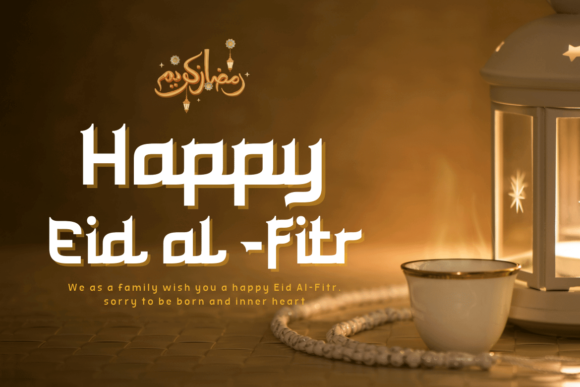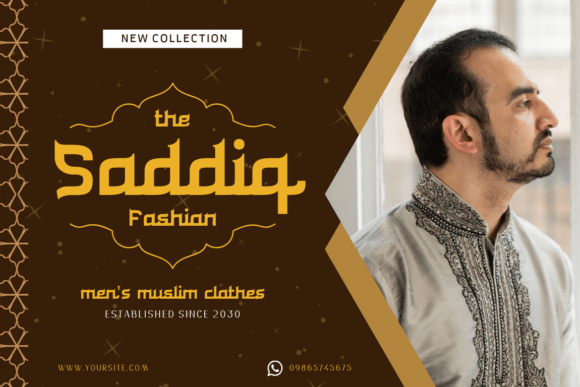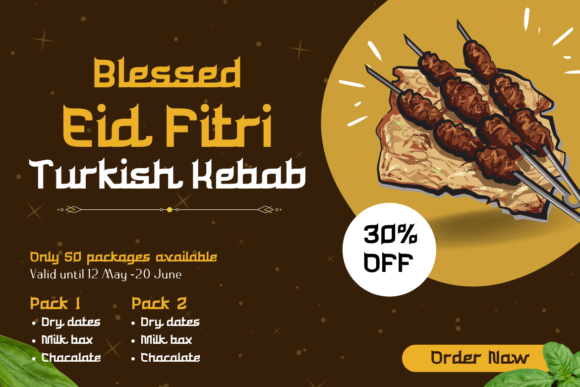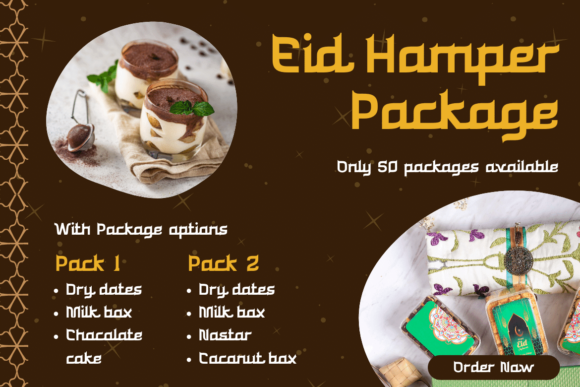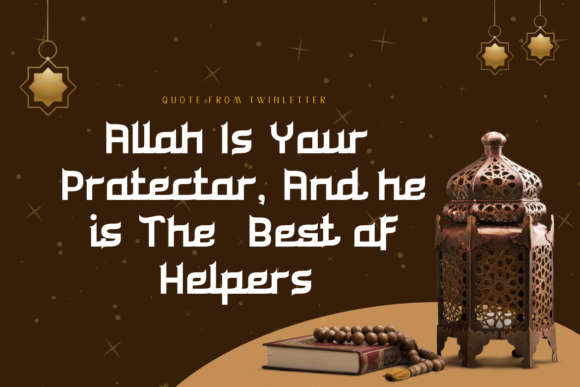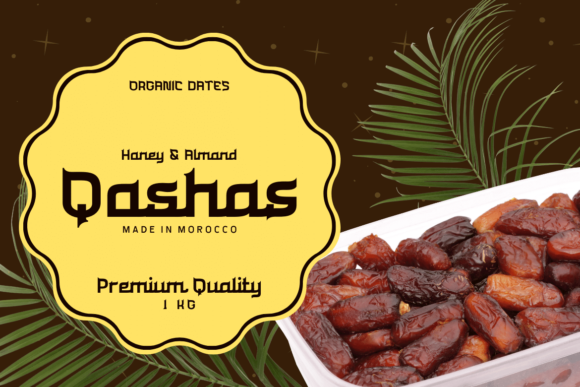
Introduction to Kebagh Font Font
Fonts play a crucial role in design, and the Kebagh Font font is a typeface that brings both character and versatility to any project. Whether you’re working on a branding project, a website, or a print design, the Kebagh Font font offers a unique style that can elevate your work.
Introducing Arabic font in the regular and bound style named Kebagh.
Our display fonts are perfect for your various projects, magazine covers, packaging, and many other design projects You’ll find designs ranging from traditional to modern with a variety of different styles in between.
Key Features of Kebagh Font Font
Why Choose Kebagh Font Font?
The Kebagh Font font is more than just a typeface – it’s a design tool that helps you communicate your message with style and clarity. Its unique character set and versatile design make it suitable for a wide range of applications, from elegant invitations to bold headlines.
With its carefully crafted letterforms and balanced proportions, the Kebagh Font font ensures readability and visual appeal across all mediums.
What makes Kebagh Font font special?
The Kebagh Font font stands out with its unique design, exceptional readability, and versatility across various design applications.